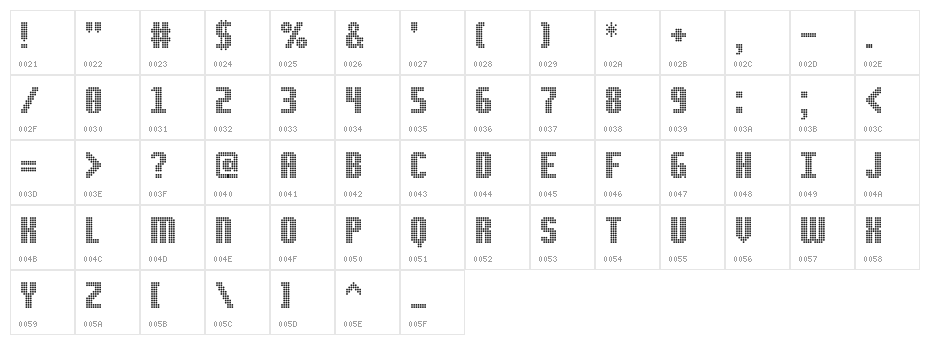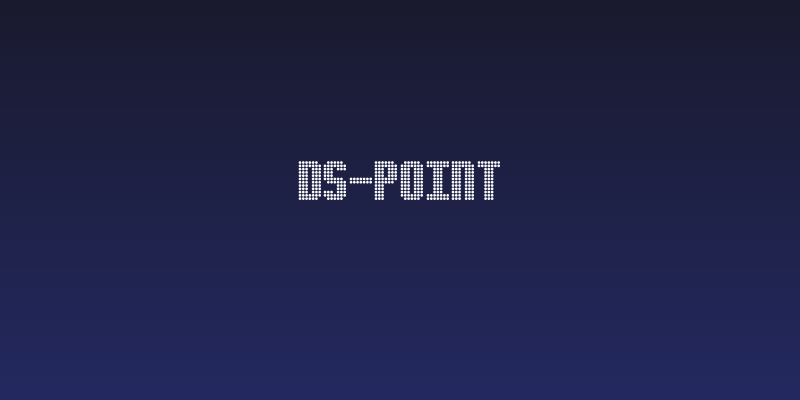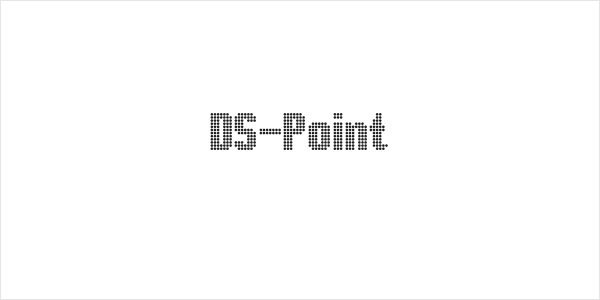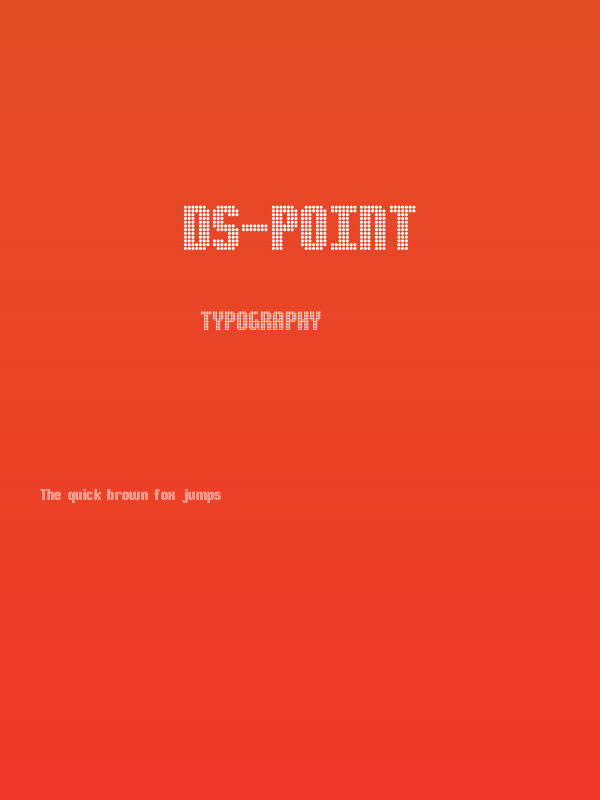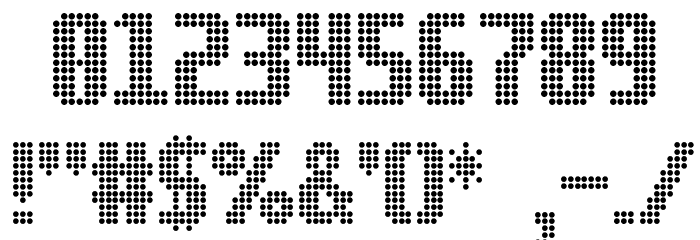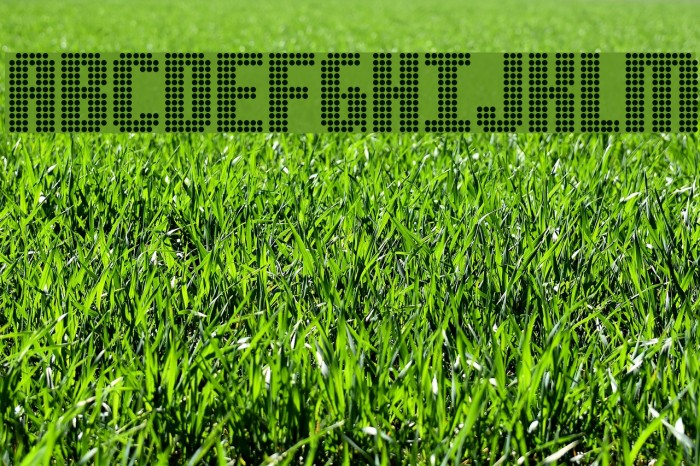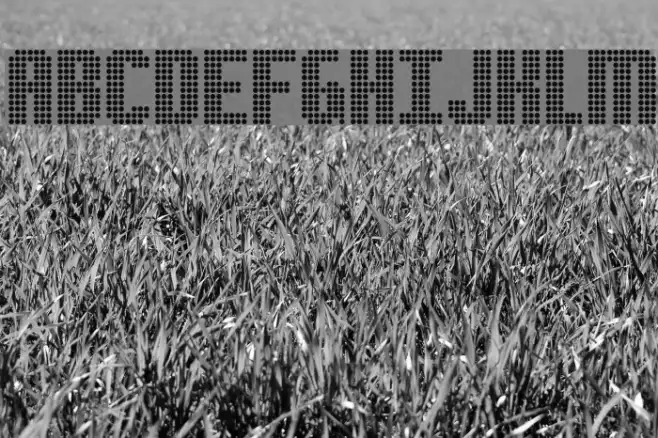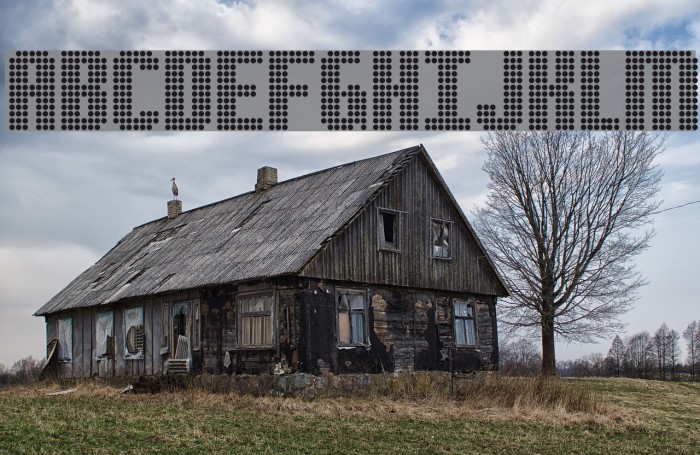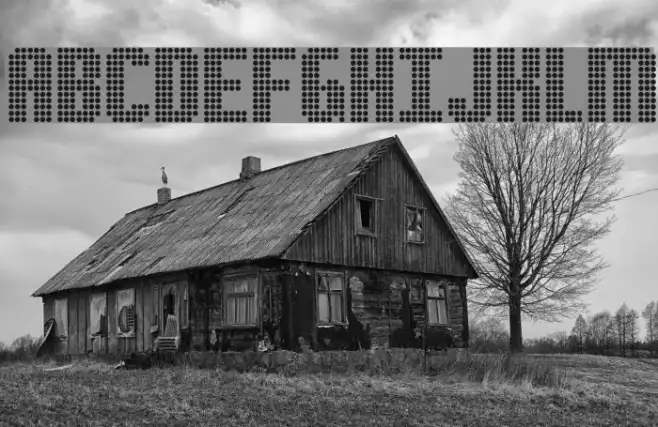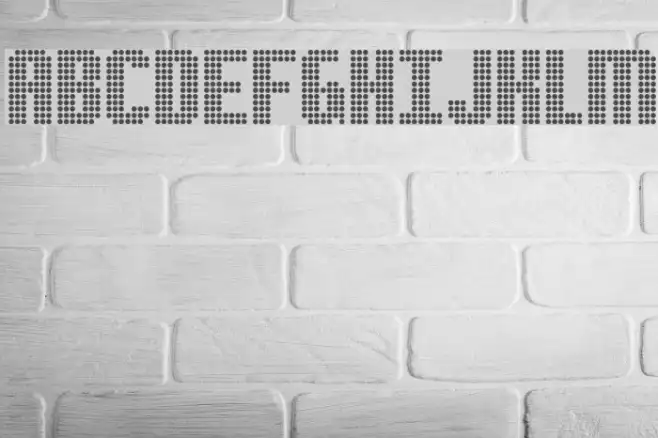
DS-Point Font
DS-Point Description
This font features a unique dot matrix style, where each character is composed of a grid of evenly spaced dots. The design is reminiscent of digital displays or retro computer screens, giving it a distinct, tech-inspired aesthetic. The uppercase and lowercase letters maintain a consistent height, with the dots forming clear and legible characters. Numbers and special characters follow the same dot pattern, ensuring uniformity across the entire set. This font's geometric precision and uniformity make it stand out, offering a modern twist on classic pixelated designs.
| Use Case | Headlines, Logos, Digital displays |
| Proposed Projects | Ideal for digital displays, tech-themed projects, retro designs, and modern art installations. |